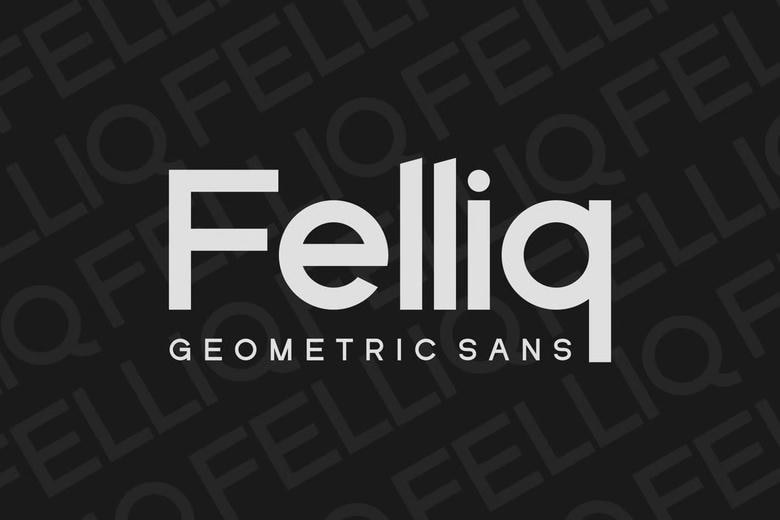
Felliq Font
Felliq Font – Geometric Sans is a normal and genuine display typeface. The font can be used in any branding project such as logo, esport, and many others. excellent in a variety of applications.
Felliq Sans Serif Font